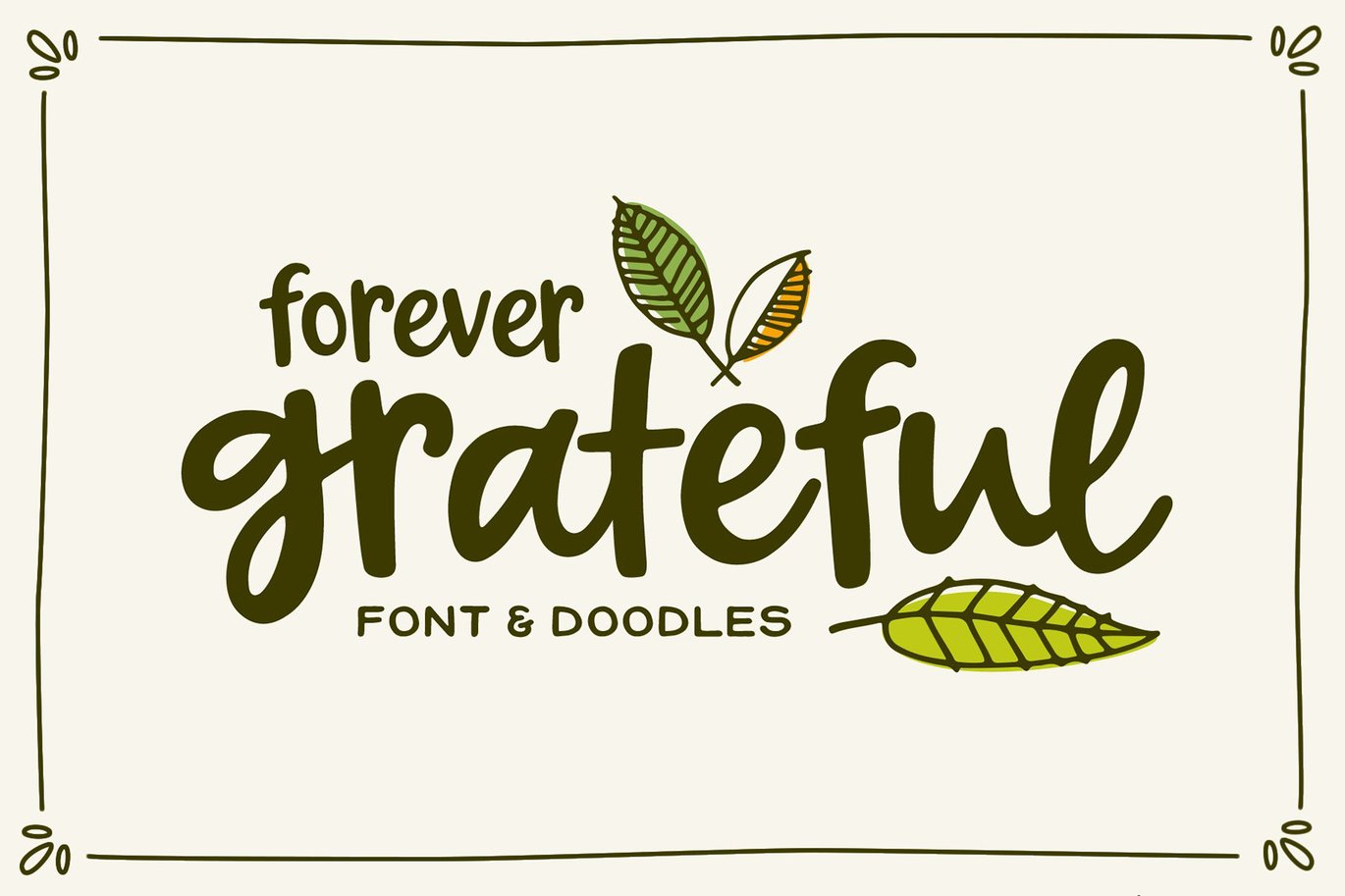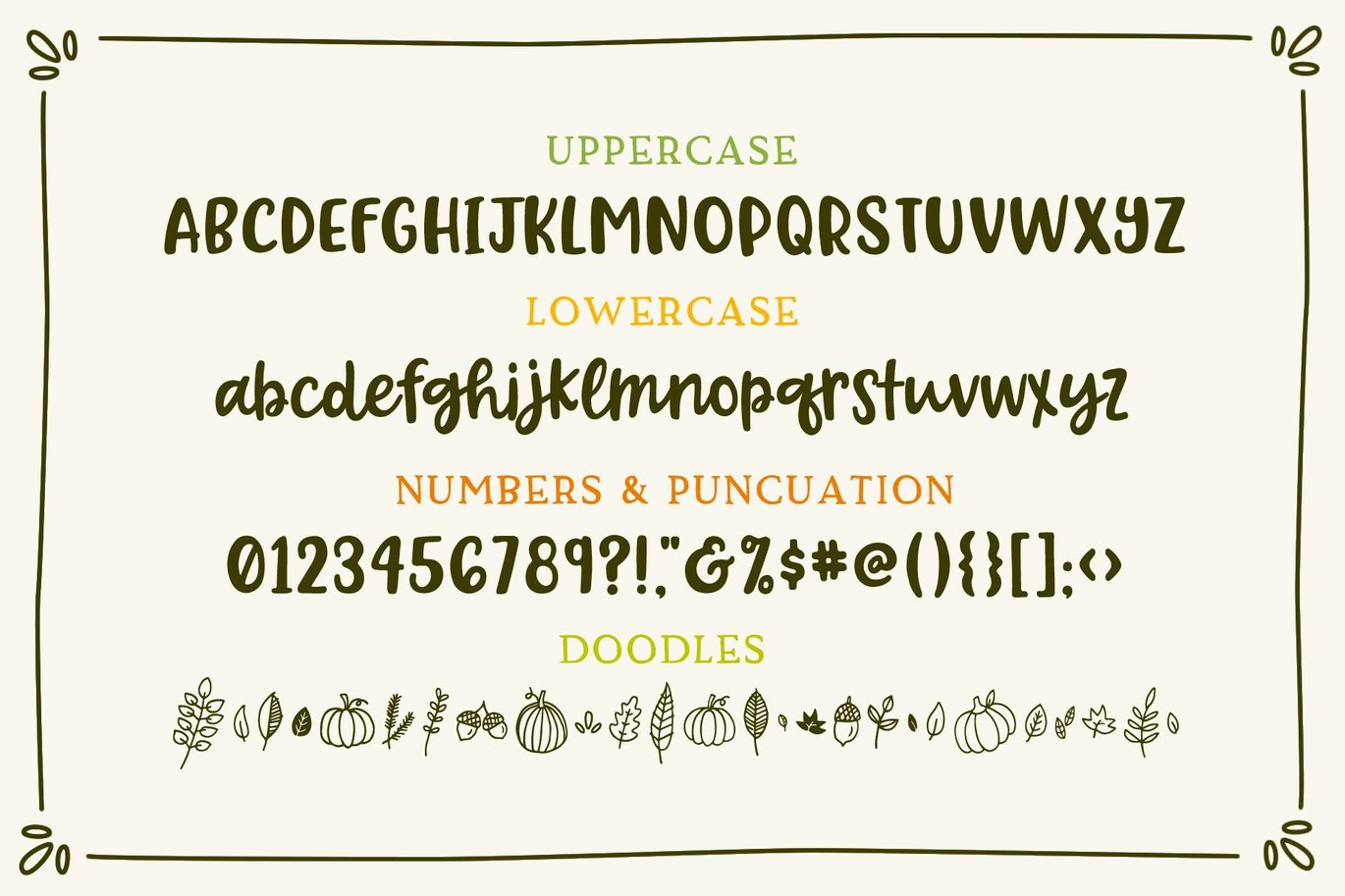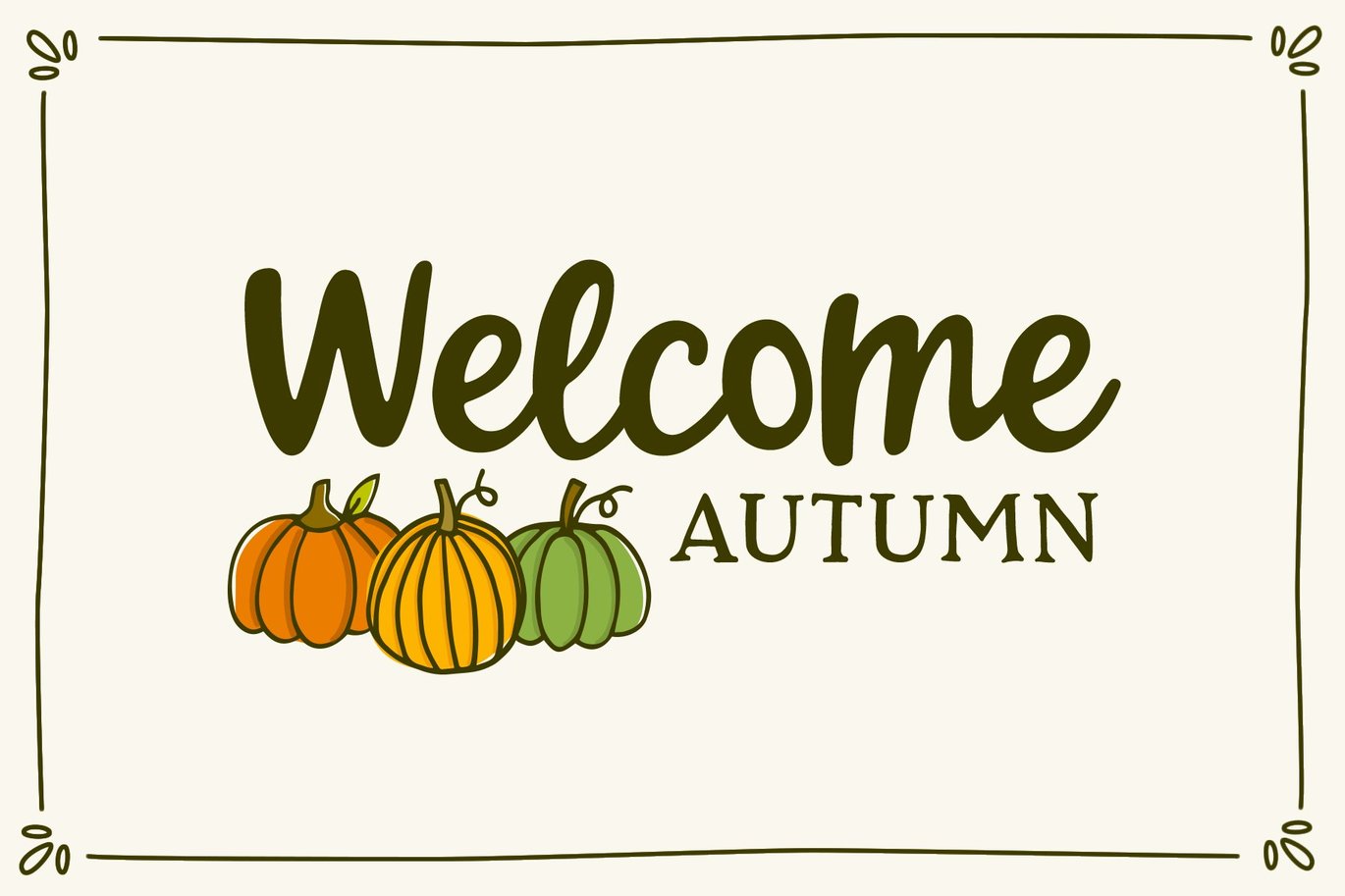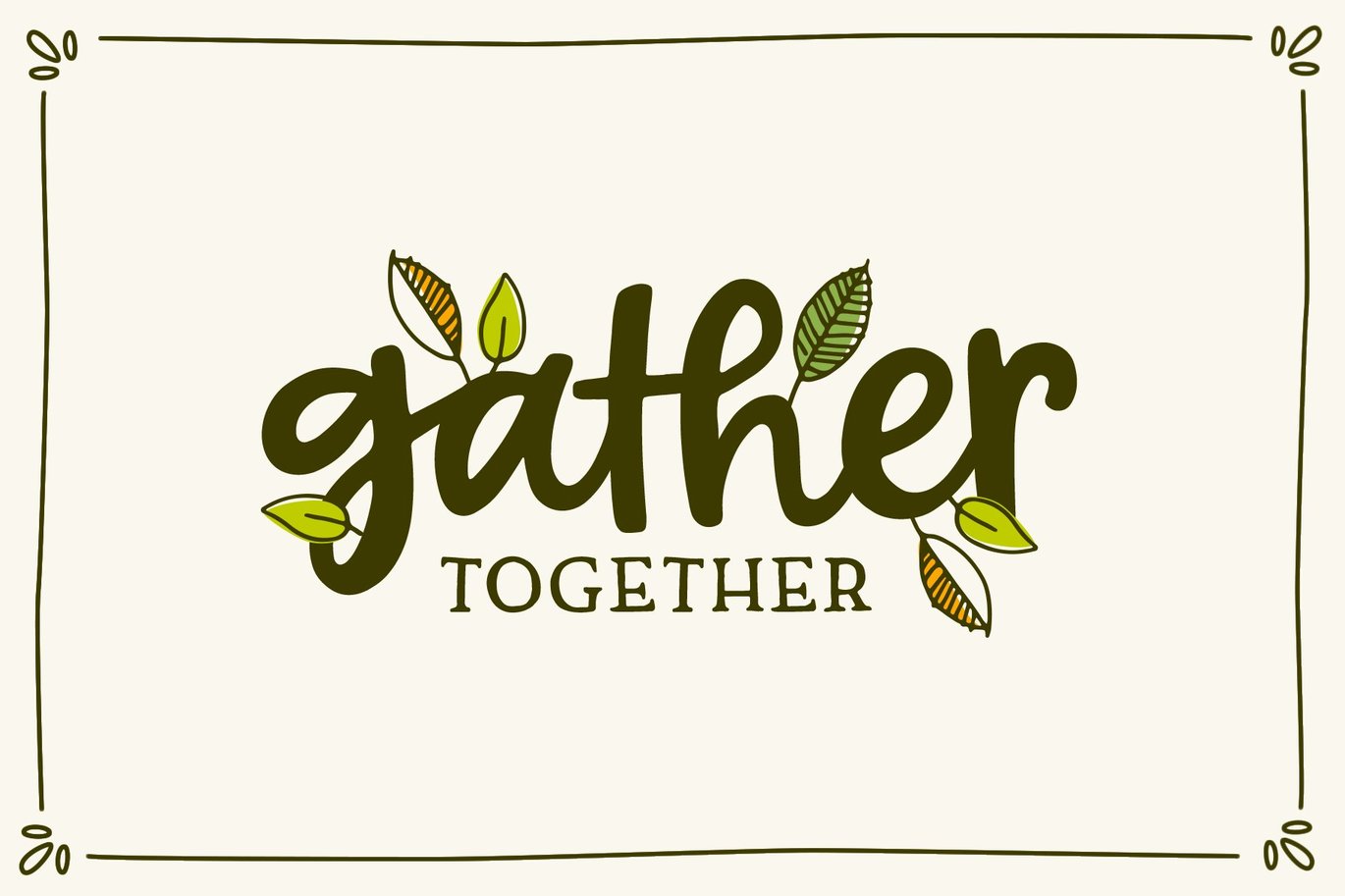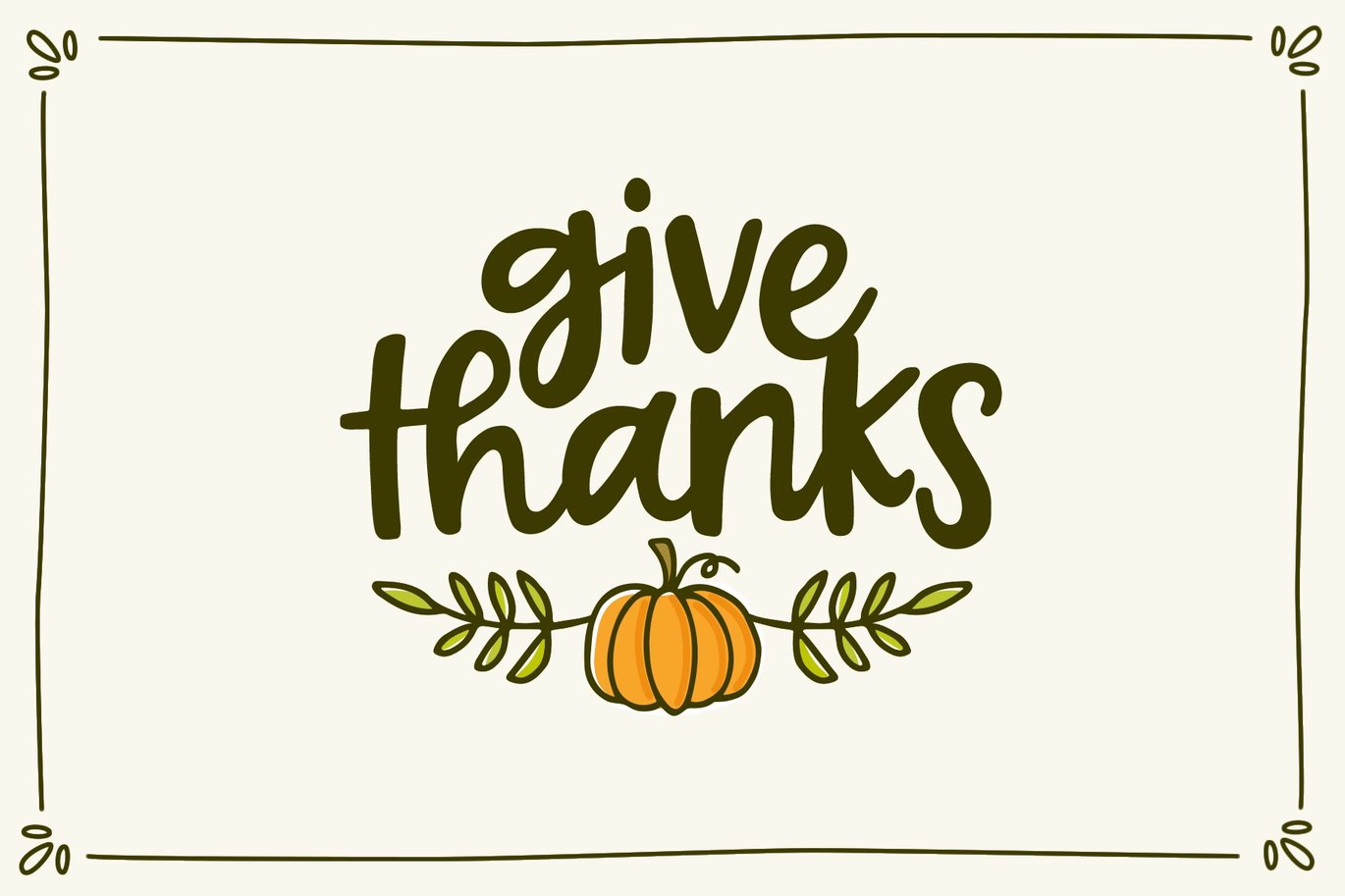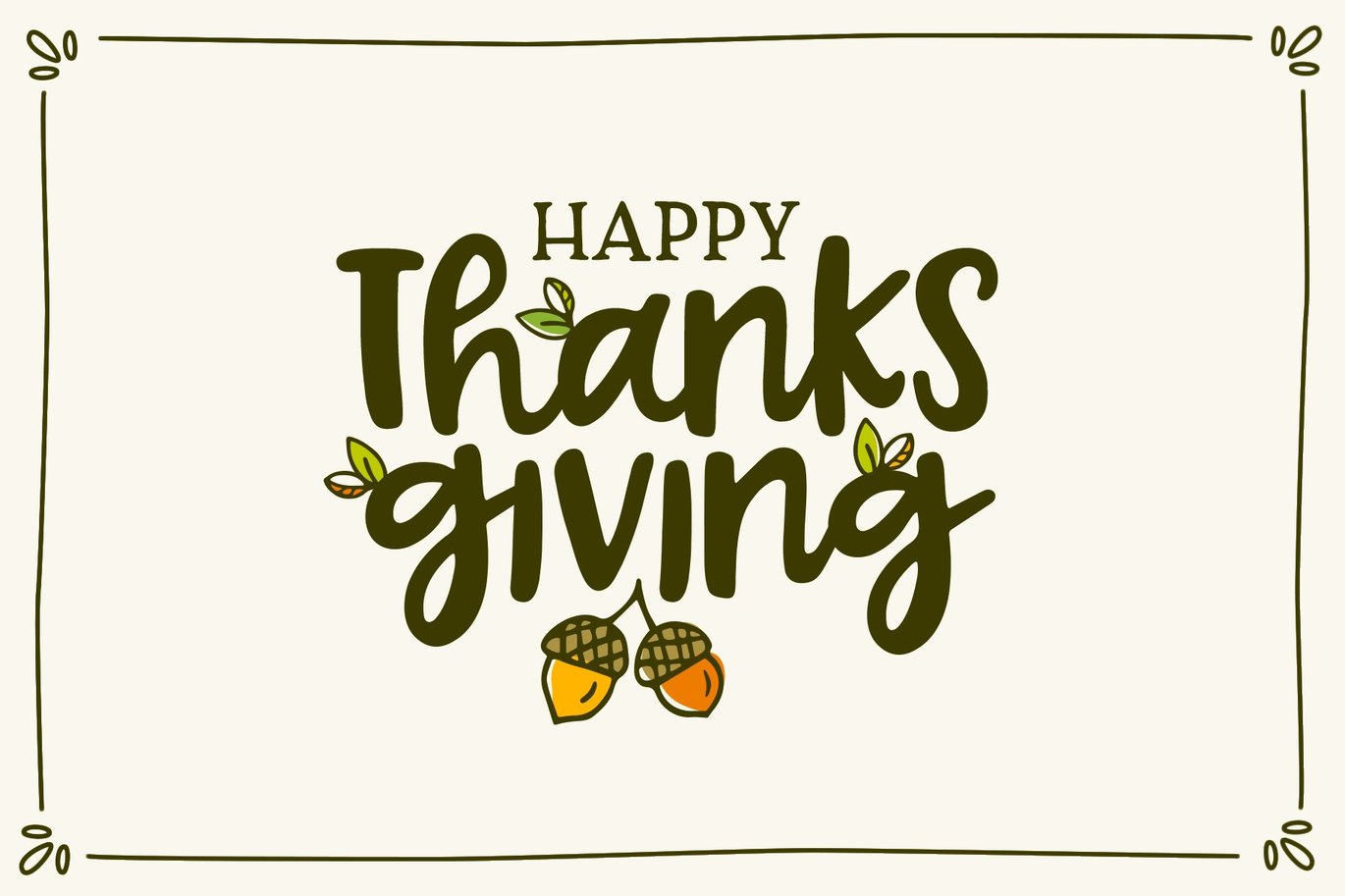
Forever Grateful Font
Forever Grateful is a playful, hand-drawn script. Its casual, friendly feel can work for a variety of projects and designs. And the set of autumn themed doodles can add that adorable touch that you need.